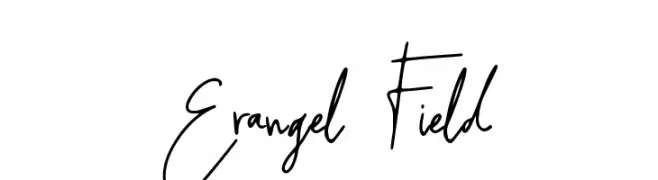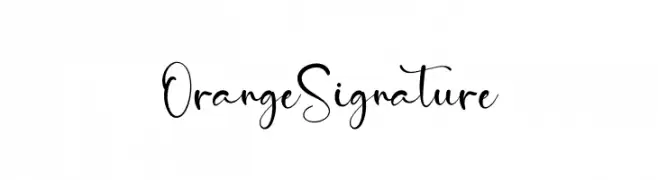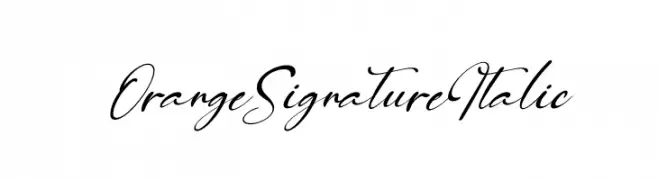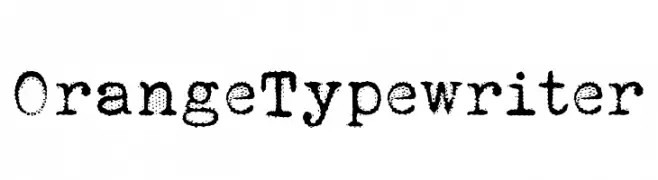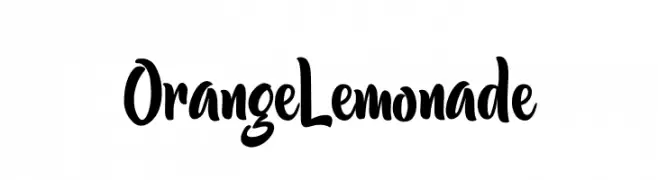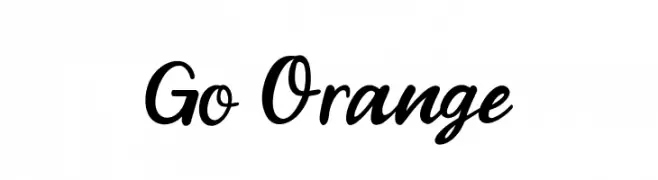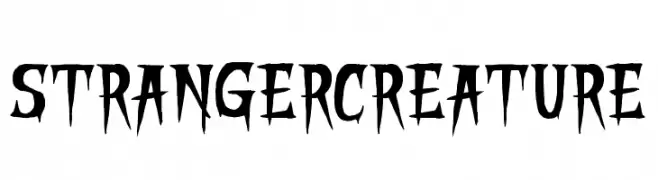
A playful and whimsical script font with decorative flourishes.
A playful, handwritten font with flowing strokes and a casual style.
A graceful, cursive font with elegant loops and swirls.
A sophisticated, italic script font with flowing, elegant strokes.
A vintage typewriter-style font with a textured, distressed appearance.
A bold, brush-style font with dynamic and expressive strokes.
A playful, hand-drawn font with tall, narrow letters and a whimsical style.
A bold, flowing script font with interconnected letters and a playful style.
A dynamic and fluid script font with elegant curves and a cohesive style.
A bold, jagged font with sharp, irregular edges for a dramatic effect.